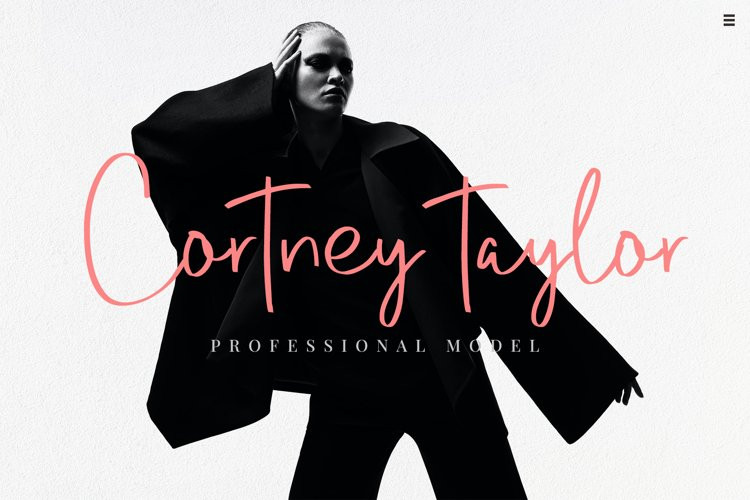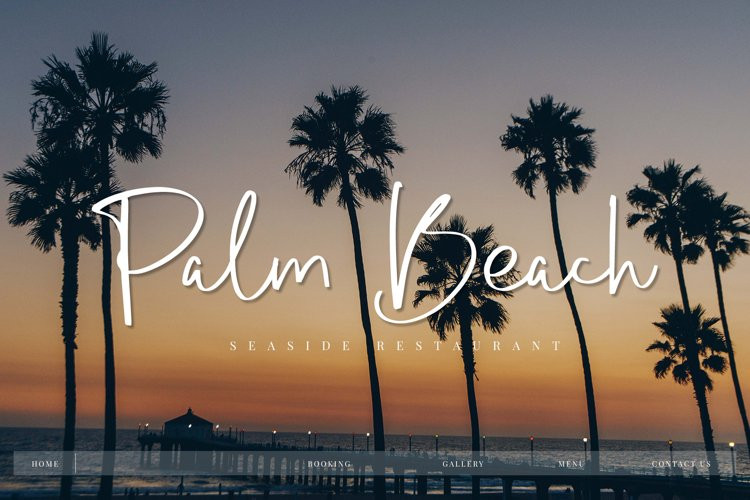
Boavista Font
Boavista is a modern handwritten font with a bold signature style. This font has a modern shape that will be useful for digital branding. For some occasions, this font is also perfect for logo design, name cards, signature logos, blogs, Instagram, and other social media purposes.